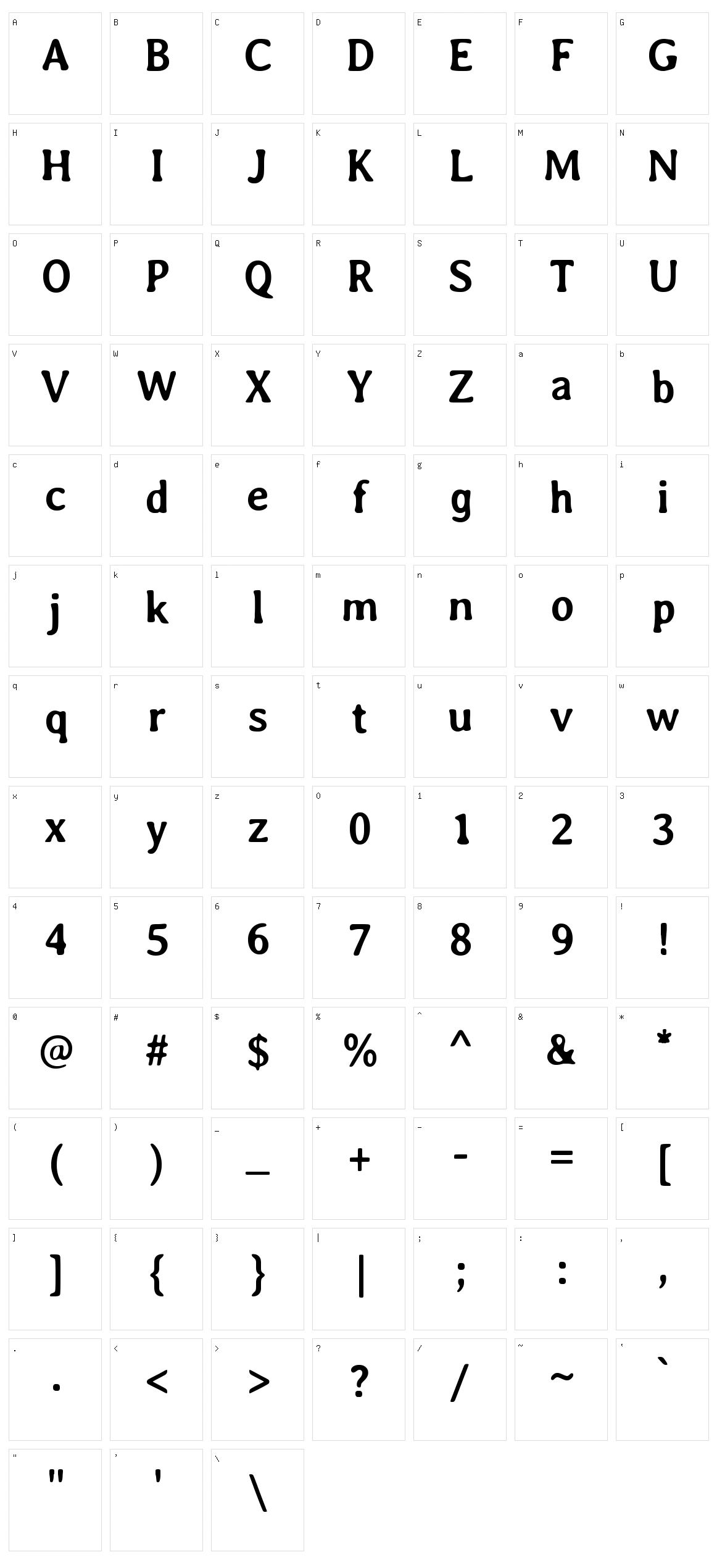
AverÃa font family
AverÃa ("breakdown" or "mechanical damage" in Spanish - related to the root
of the English word "average") is a Unicode typeface family created from the
average of all fonts on the computer of the creator, Dan Sayers. The process
is described at http://iotic.com/averia/. All metrics are the result of an
averaging process. The included glyphs are those that existed in a majority
of the source fonts - which are the following:
AverÃa exists in Regular, Bold, Italic, Bold Italic, Light and Light Italic
styles - as well as a "Gruesa" semi-italic variant made from an average of
all 725 source fonts.